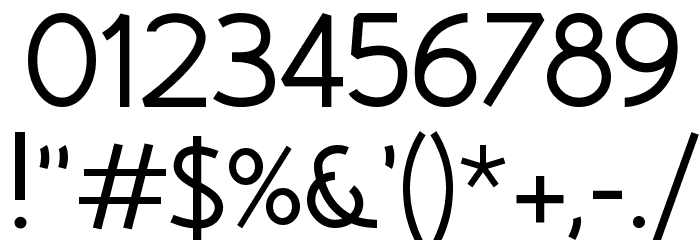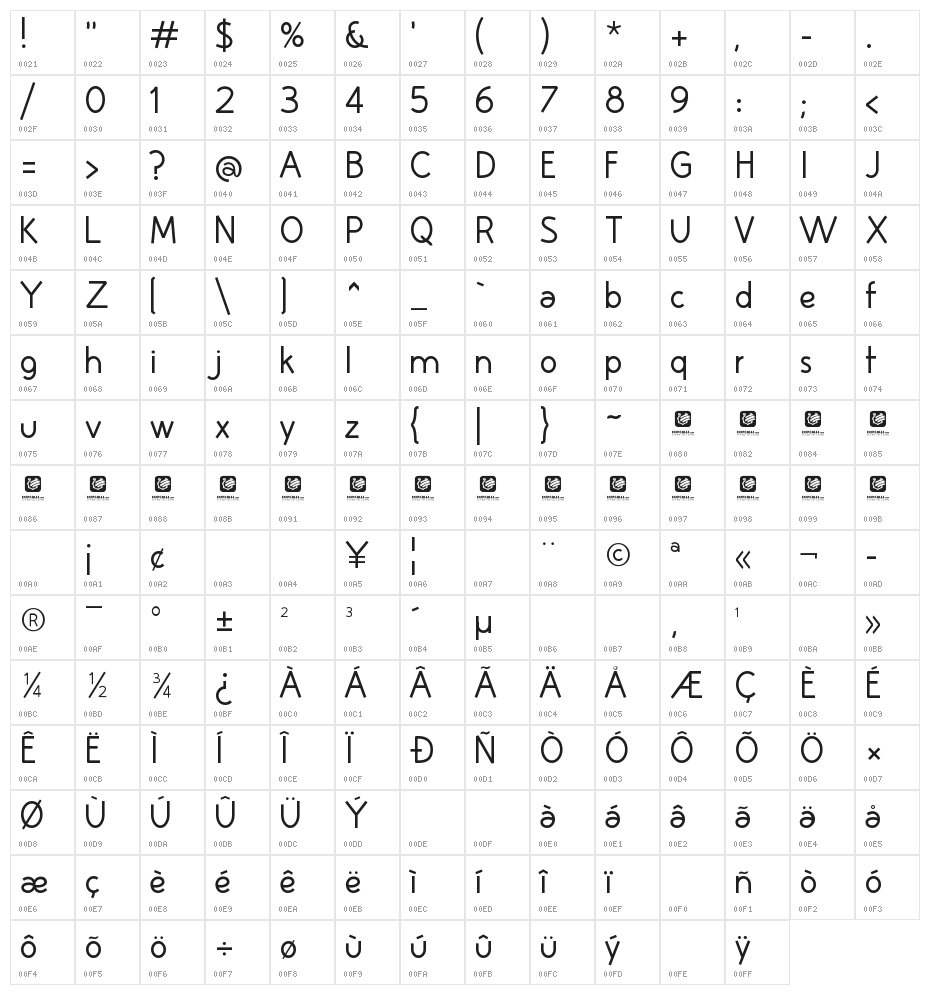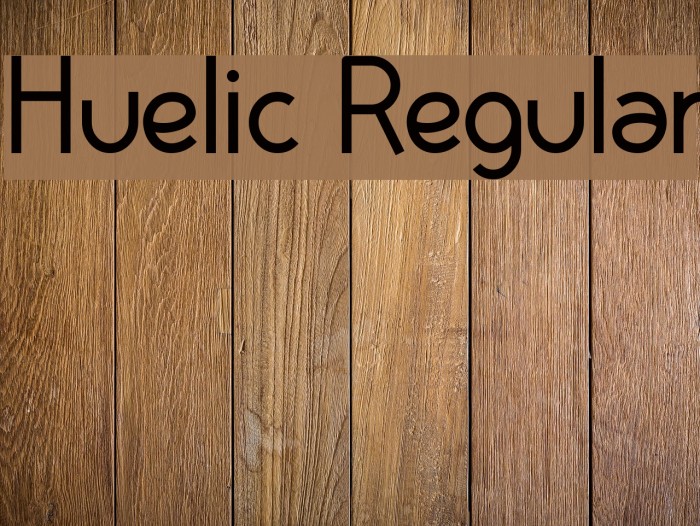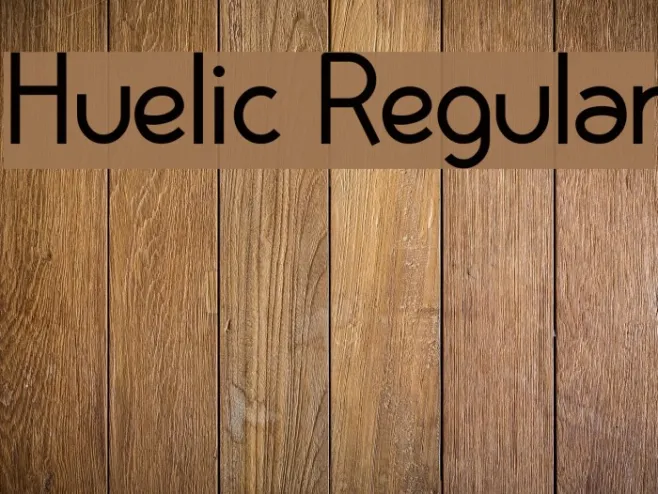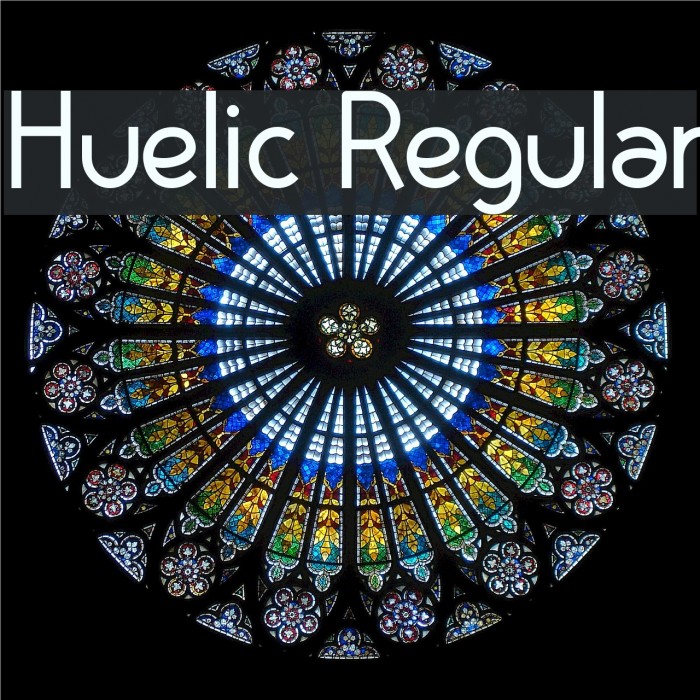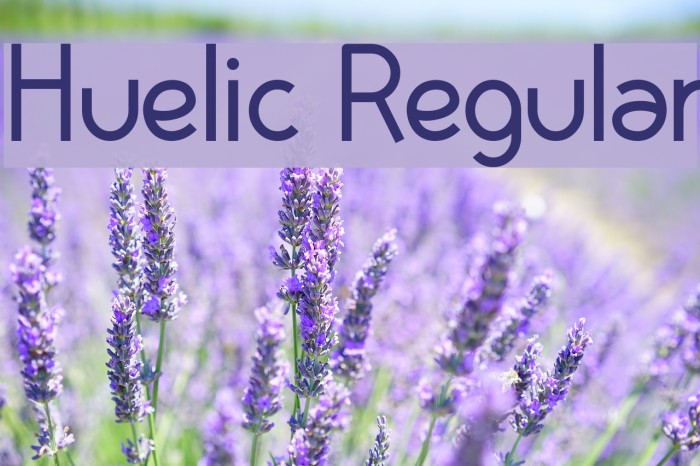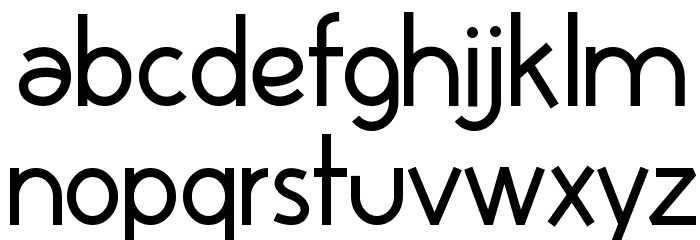
Huelic Regular Font
Huelic Regular Description
This font features a clean and modern sans-serif style with smooth, rounded edges and a uniform stroke width. The characters are well-proportioned, providing excellent readability and a contemporary aesthetic. The uppercase and lowercase letters maintain a consistent design, with the lowercase 'a' and 'g' having a single-story structure. The numerals are clear and distinct, making them easy to read. Special characters are designed to match the overall style, ensuring a cohesive look across all text elements.
| Proposed Projects | Ideal for branding, digital interfaces, advertising, and editorial design where clarity and modernity are key. |